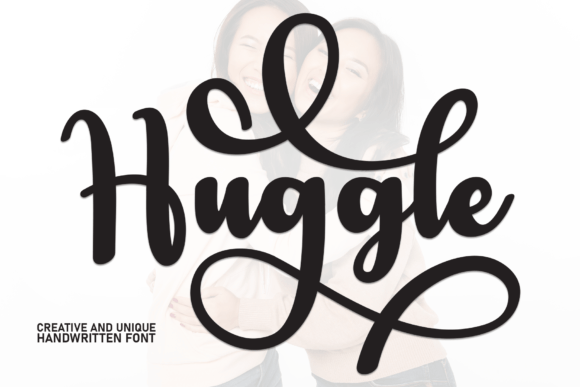
Introducing Huggle Font - The Quintessential Script Font for Making Your Designs Dance!
Immerse yourself in the world of enchanting calligraphy with Huggle Font, an exquisite handwritten typeface flowing with grace and elegance. Crafted by the talented Roronoa zoro.S.P.D, this script font possesses an intrinsic beauty that breathes life into any design project. Its meticulously crafted curves and delicate flourishes evoke a sense of timeless sophistication, inviting you to create projects that leave an indelible mark.
Unleash the Endless Possibilities of Creative Expression:
With Huggle Font in your design arsenal, the possibilities for creative expression are infinite. Whether you're an aspiring artist, a seasoned graphic designer, or simply a creative soul seeking a touch of elegance, this font will captivate your imagination. Create stunning logos, eye-catching social media graphics, captivating marketing materials, and personalized invitations that exude charm and leave a lasting impression.
Capture Hearts with Every Word:
Embrace the art of impeccable typography with Huggle Font and watch as your words dance on the page. As a cursive font, it evokes a sense of playfulness and warmth, making it ideal for projects where you want to convey a personal touch. Its sweeping strokes and meticulously crafted details bring an element of charm to any text, transforming ordinary words into works of art.
Experience the Elegance of Timeless Beauty:
Huggle Font transcends time with its timeless appeal, making it the perfect choice for projects that demand sophistication and enduring style. Its classic design ensures that your creations will remain relevant and captivating for years to come, preserving the essence of your artistry. Whether it's a timeless wedding invitation, a commemorative poster, or a captivating brand logo, Huggle Font adds a touch of enduring beauty that will never fade.
Embrace the Simplicity of Excellence:
Using Huggle Font is as easy as falling in love with its beauty. Its clean lines and intuitive design make it a joy to use, even for those new to the world of typography. Whether you're a seasoned designer or just starting your creative journey, Huggle Font welcomes you with open arms, allowing you to create stunning visuals effortlessly.
Indulge in the Exquisite Embrace of Huggle Font:
Don't settle for ordinary fonts that blend into the background. Choose Huggle Font and elevate your designs to new heights. Let its enchanting charm capture the hearts of your audience and leave them spellbound by your creative genius. Discover the true essence of elegance and timeless beauty with Huggle Font, the ultimate script font that will transform your designs into captivating masterpieces.